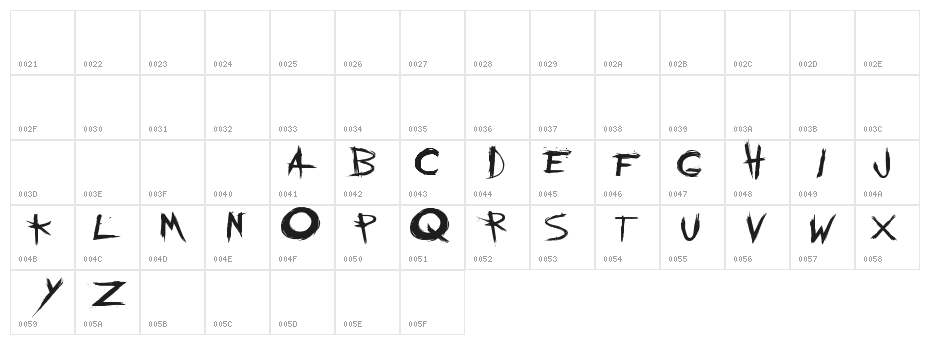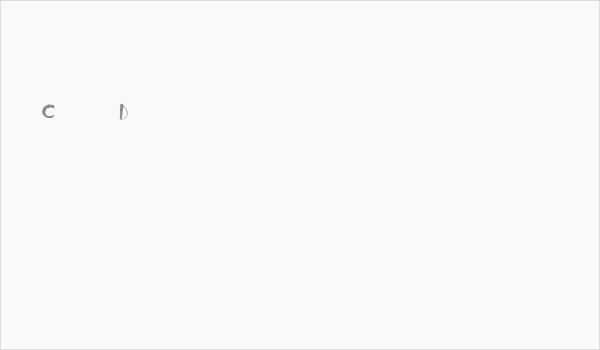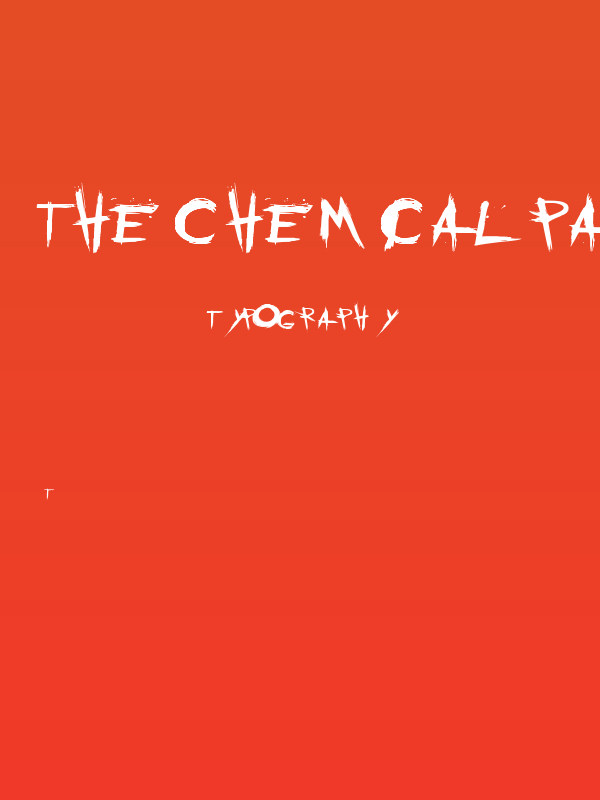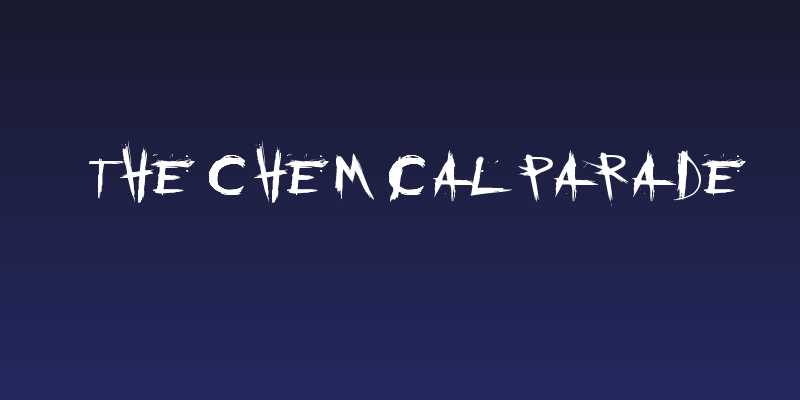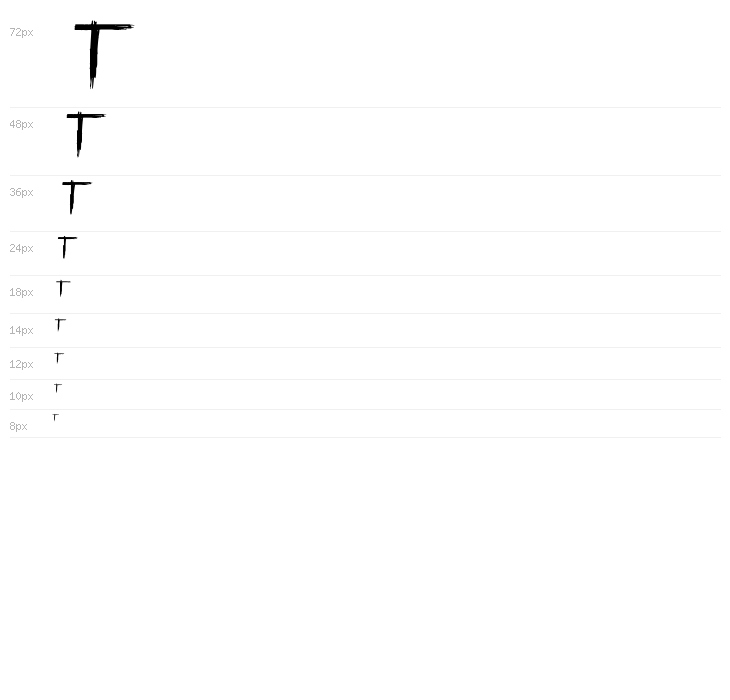
the chemical parade Font
the chemical parade Description
This font features a grungy, distressed style with uneven strokes and a hand-drawn appearance. The letters are characterized by jagged edges and irregular shapes, giving it a chaotic and rebellious feel. The uppercase and lowercase letters maintain a consistent rough texture, which adds to the overall edgy aesthetic. The numbers and special characters follow the same design principles, ensuring a cohesive look across all glyphs. This font is ideal for projects that require a bold, unconventional style, such as music album covers, posters, or any design that aims to convey a sense of raw energy and individuality.
Overall StyleGrunge, Edgy, Rebellious
Use CaseLogos, Posters, Album Covers
Proposed ProjectsIdeal for music album covers, edgy posters, and rebellious-themed designs.